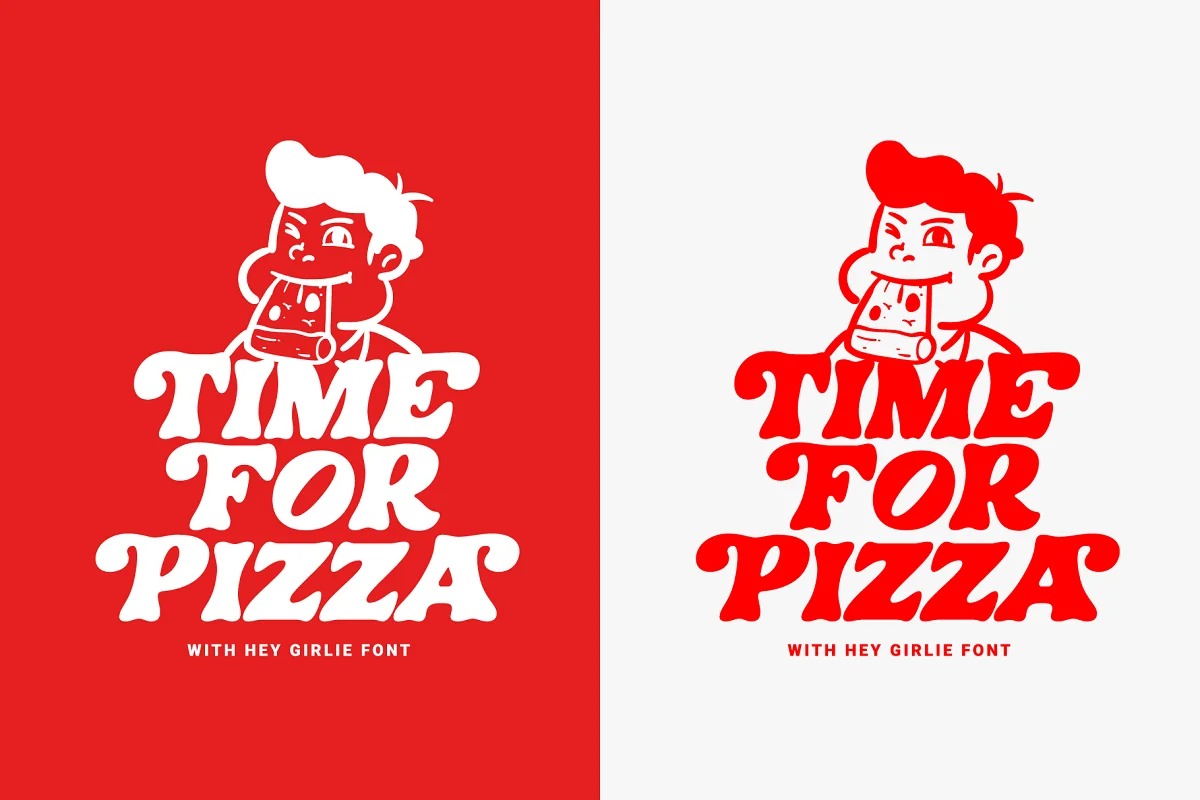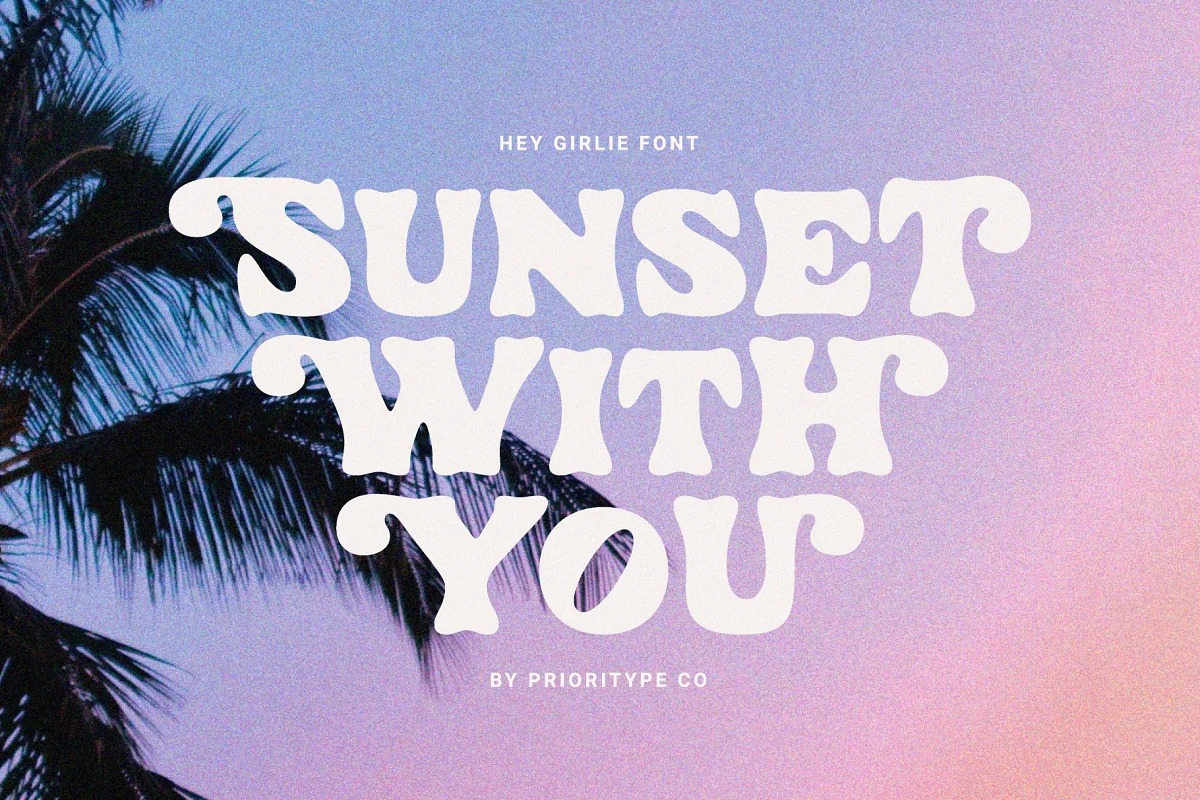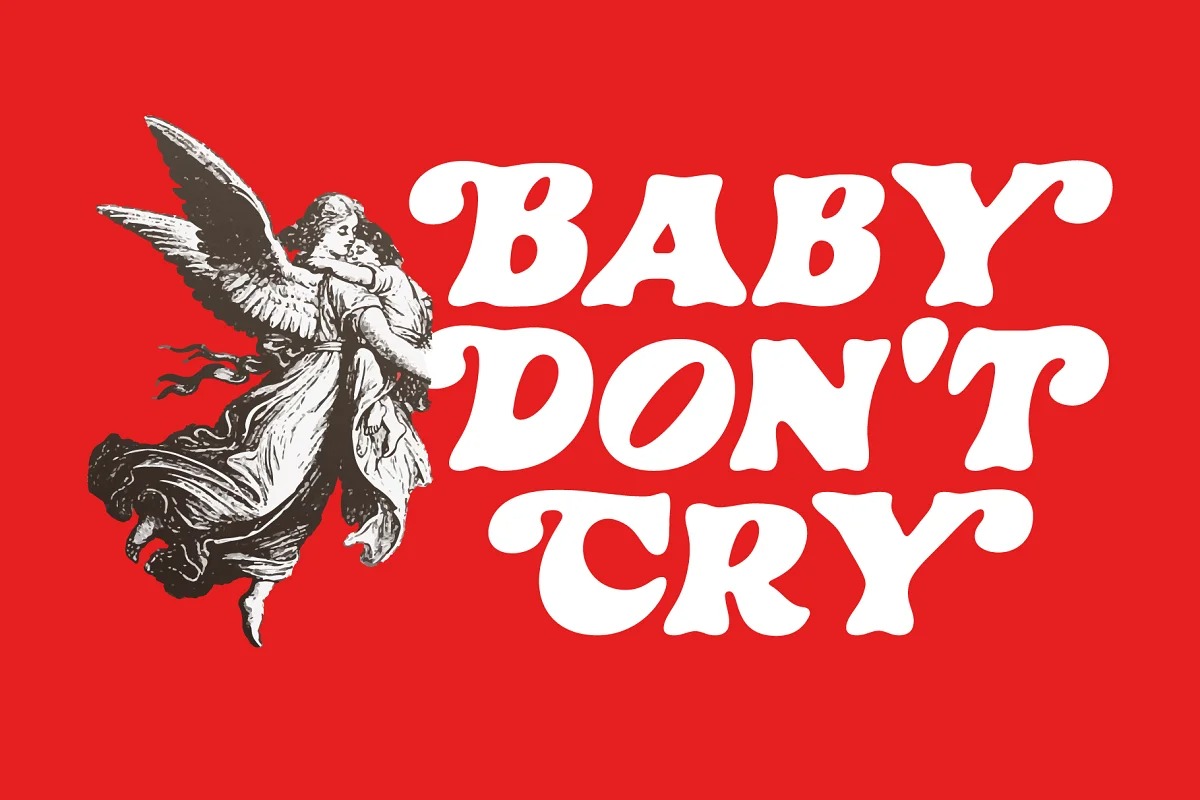
Hey Girlie Serif Font is a typeface display that makes us feel nostalgic! It brings back the 60s to 70s vibe with a fun, retro typeface, with a uniquely crafted touch to each letter. Equipped with alternative characters to expand your design style. There are two styles, namely regular and slant. Perfect for merchandise designs, posters, titles, stickers etc.